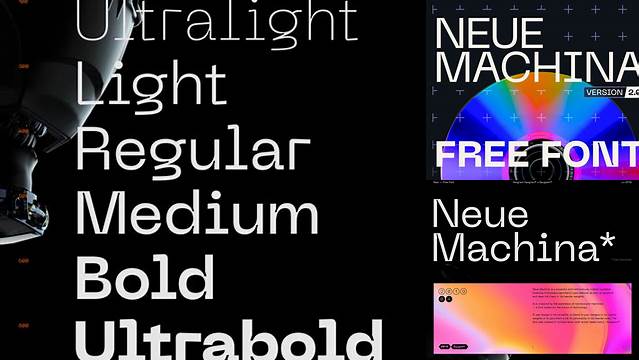
Free Neue Machina Font Download: A Designer's Guide
Are you looking for a modern, futuristic font to add a unique touch to your designs? Look no further than Neue Machina! This versatile typeface has gained immense popularity among designers and creatives for its sleek lines, geometric shapes, and overall contemporary feel. In this comprehensive guide, we'll delve into everything you need to know about Neue Machina, including where to find free downloads, how to use it effectively, its various applications, and more. So, let's dive in and explore the world of Neue Machina!
What is Neue Machina Font?
Neue Machina is a geometric sans-serif typeface designed by Pangram Foundry, a renowned type foundry known for its innovative and high-quality fonts. This font family exudes a sense of modernity and technological advancement, making it a perfect choice for projects that aim to convey a cutting-edge and futuristic aesthetic. Its clean lines and sharp angles create a visually striking impression, while its balanced proportions ensure readability across various applications. The font's versatility stems from its ability to be used in both display and body text, making it a valuable asset for designers working on a wide range of projects. Whether you're designing a website, creating a logo, or crafting marketing materials, Neue Machina can help you achieve a contemporary and sophisticated look.
The design of Neue Machina draws inspiration from the geometric sans-serif fonts of the early 20th century, such as Futura and Avant Garde. However, it adds its own unique twist with its slightly condensed proportions and distinctive letterforms. The font's character set includes a wide range of weights and styles, from thin and light to bold and heavy, giving designers plenty of options to choose from. Additionally, Neue Machina supports a variety of languages and includes OpenType features such as ligatures and alternate characters, further enhancing its versatility. Its meticulous design ensures that it performs well in both print and digital environments, making it a reliable choice for any project. The font's consistent letterforms and spacing contribute to a harmonious reading experience, while its stylistic details add personality and character. Neue Machina is more than just a font; it's a design tool that empowers creatives to communicate their message with clarity and impact.
Furthermore, the visual appeal and technical precision of Neue Machina have made it a favorite among designers in various industries. Its ability to convey both technological sophistication and aesthetic elegance is a testament to its thoughtful design. The font's versatility allows it to adapt to different design contexts, whether it's used for a minimalist website or a bold advertising campaign. Its clean lines and geometric shapes ensure that it remains legible and impactful, even at small sizes. Neue Machina's enduring popularity is a reflection of its timeless design and its ability to stay relevant in a constantly evolving design landscape. As a font that blends form and function seamlessly, Neue Machina is a valuable addition to any designer's toolkit.